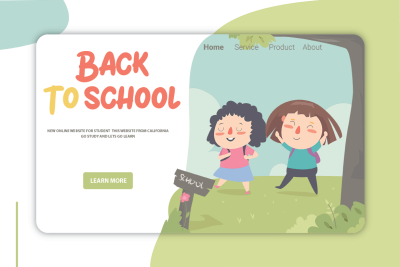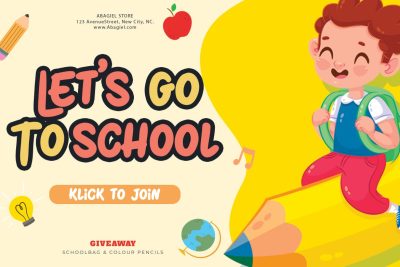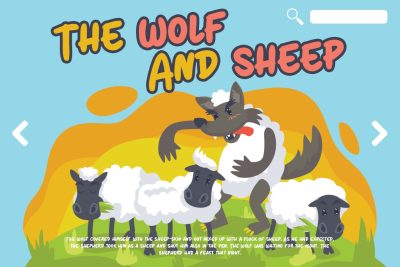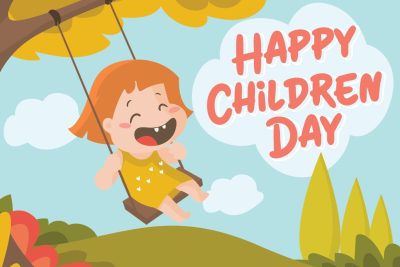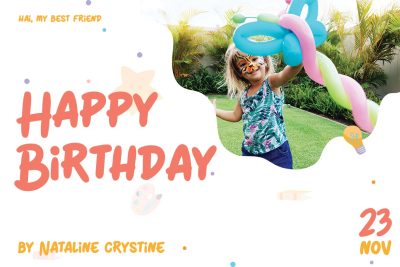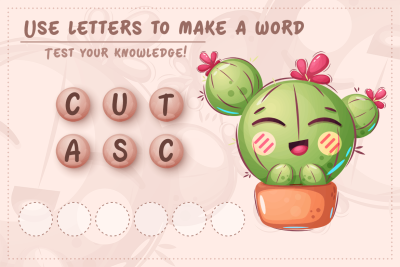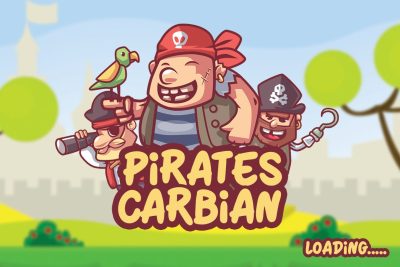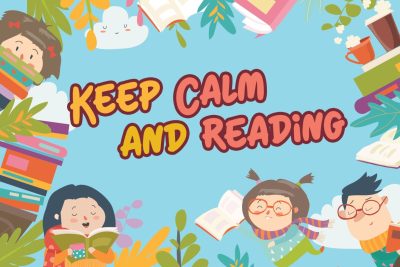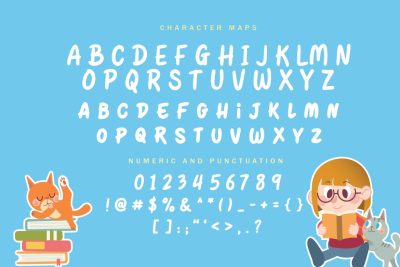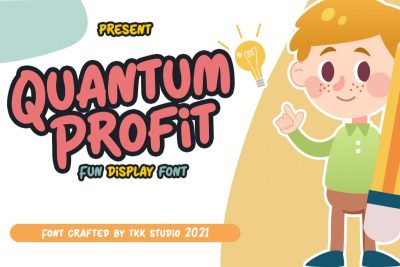
Handwriting font Quantum Profit is a bold, lively typeface that adds energy and personality to any project. This font combines a friendly, handwritten look with thick, rounded edges, making it both approachable and visually striking. Additionally, with its playful style, Quantum Profit brings warmth and fun to your designs. Its large, rounded characters immediately grab attention, while its slightly irregular strokes add a natural, handcrafted feel. Therefore, this font is perfect for designs that aim to be engaging and memorable, bringing a joyful vibe to any project.
Moreover, Quantum Profitโs design is highly versatile. The fontโs bold structure ensures readability, even at smaller sizes. Its rounded, friendly letters create a welcoming atmosphere, which is ideal for playful or educational themes. Furthermore, the surrounding illustrations, like smiling books, apples, and school supplies, enhance the font’s fun and educational appeal. This combination makes Quantum Profit excellent for a variety of projects, especially those needing an eye-catching headline or title. Ultimately, its unique look can elevate designs, making them feel both contemporary and accessible.
Handwriting font Quantum Profit is ideal for educators, childrenโs book authors, and childrenโs product designers. For instance, teachers and educational content creators can use this font for classroom materials, such as posters, handouts, and activity sheets. The fontโs playful style makes learning materials more appealing to young students, creating a positive learning environment. Additionally, itโs suitable for educational apps and websites, which enhances the kid-friendly user experience.
Childrenโs book authors and illustrators will also benefit from Quantum Profit. Itโs great for book covers, chapter headings, and title pages, adding charm and energy. Furthermore, this font can enhance visual storytelling and appeal to young readers by creating an inviting reading experience. For graphic designers and brand developers in childrenโs products, Quantum Profit is ideal. Itโs perfect for branding toys, games, or kids’ clothing, as it adds a vibrant and relatable identity.
Additionally, social media managers targeting parents, teachers, or family-oriented audiences will find this font valuable. Quantum Profit adds personality to digital content, whether in social media posts, blog graphics, or promotional material. Its unique style makes it memorable and helps brands stand out in a playful way. For both digital and print projects, handwriting font Quantum Profit provides versatility and charm. Thus, itโs perfect for creating designs that resonate with children and caregivers, leaving a lasting impression.